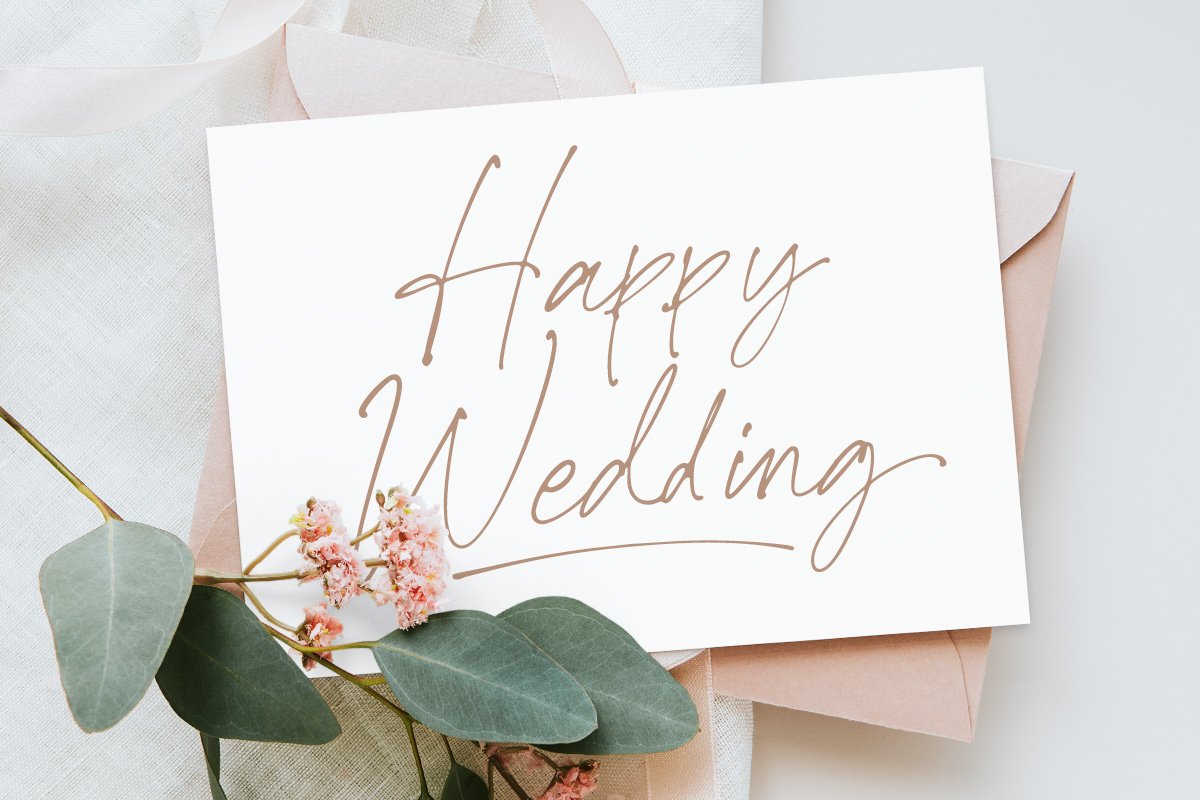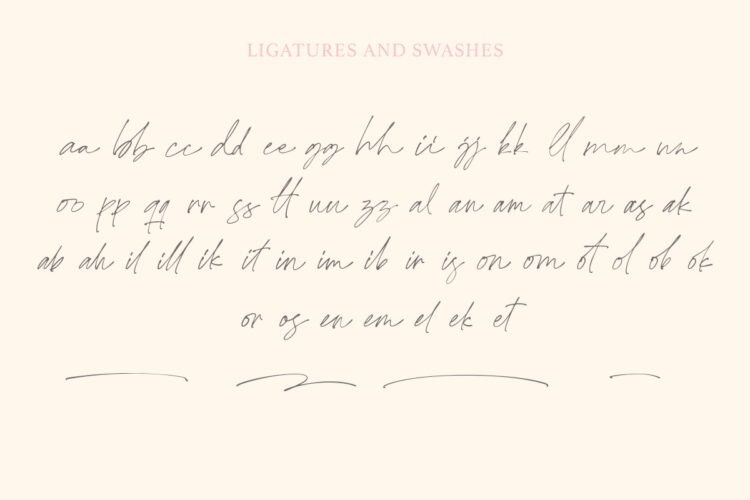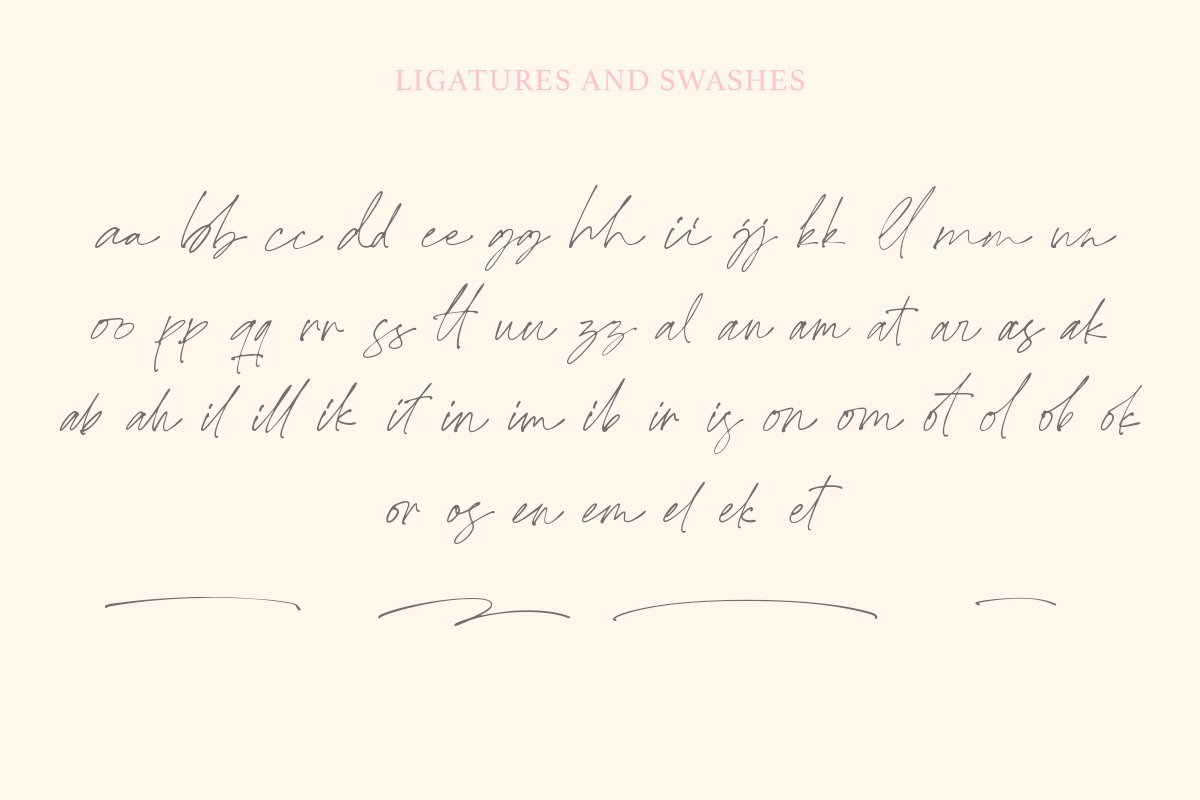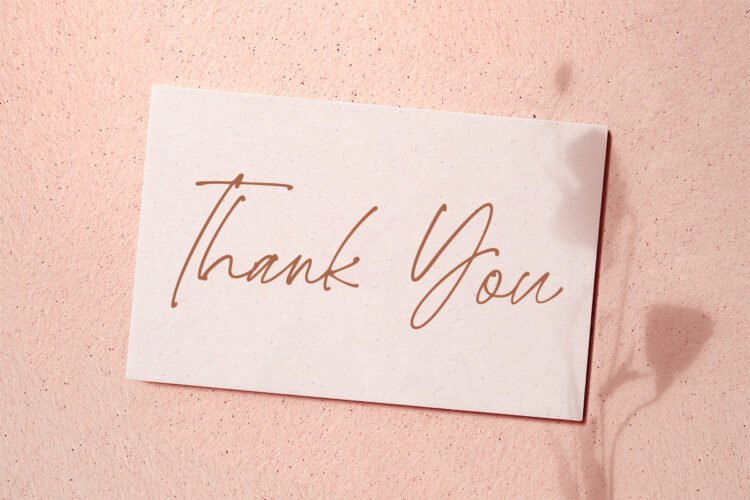
Introducing, Bellingham! Bellingham is an organic handwritten script font that comes with a lot of ligatures and swashes to make this font more unique with every word you type! this font is perfect for signature, packaging, logo, invitations, novel, etc.